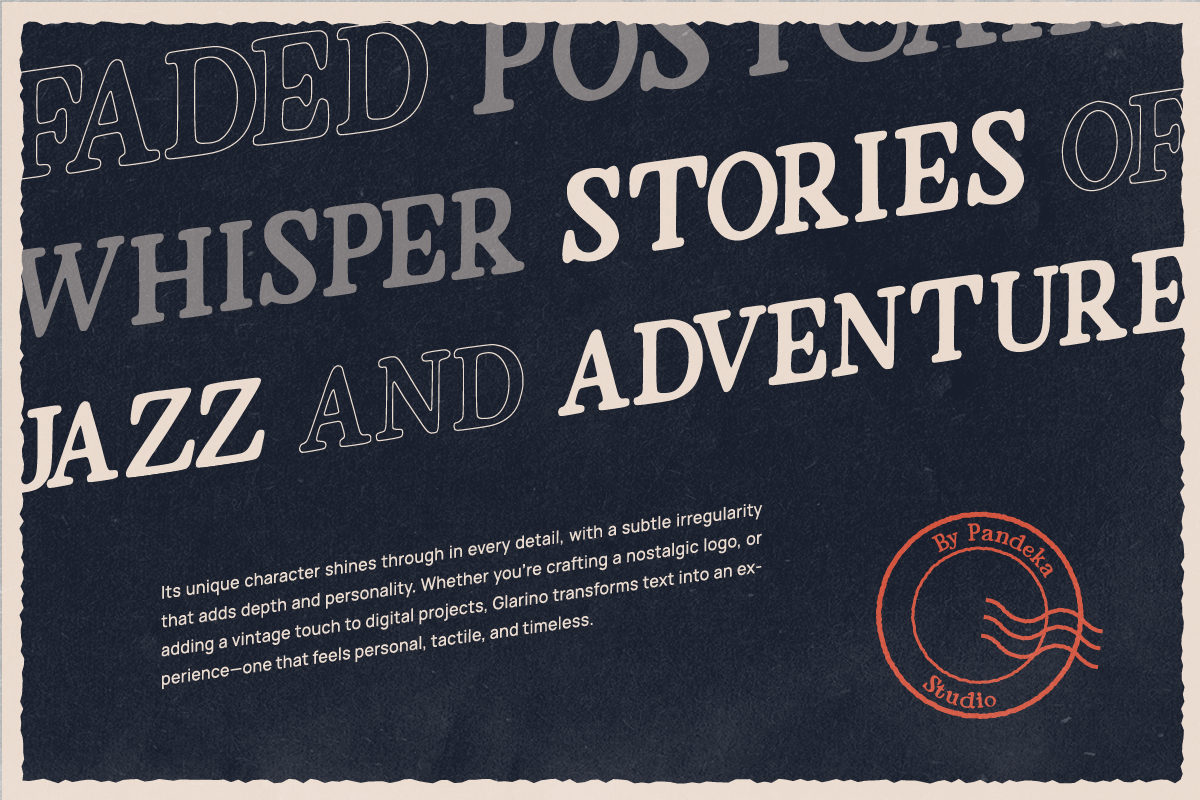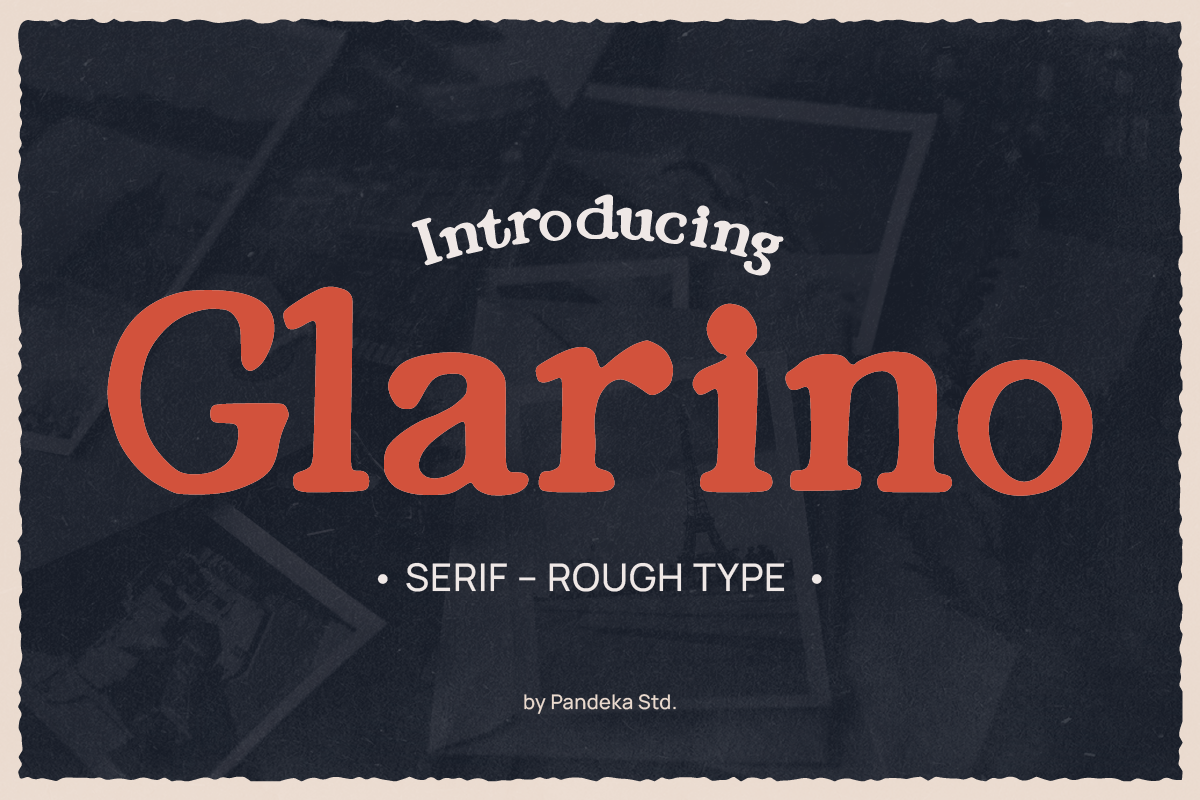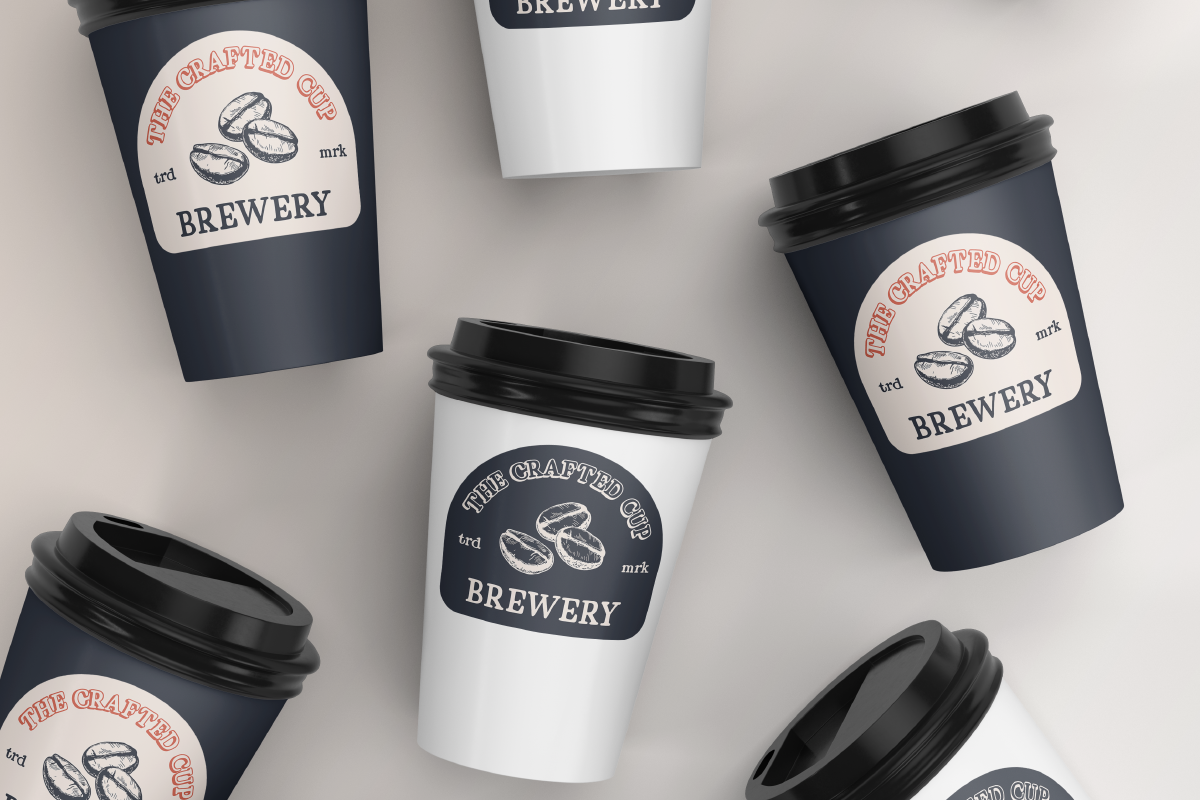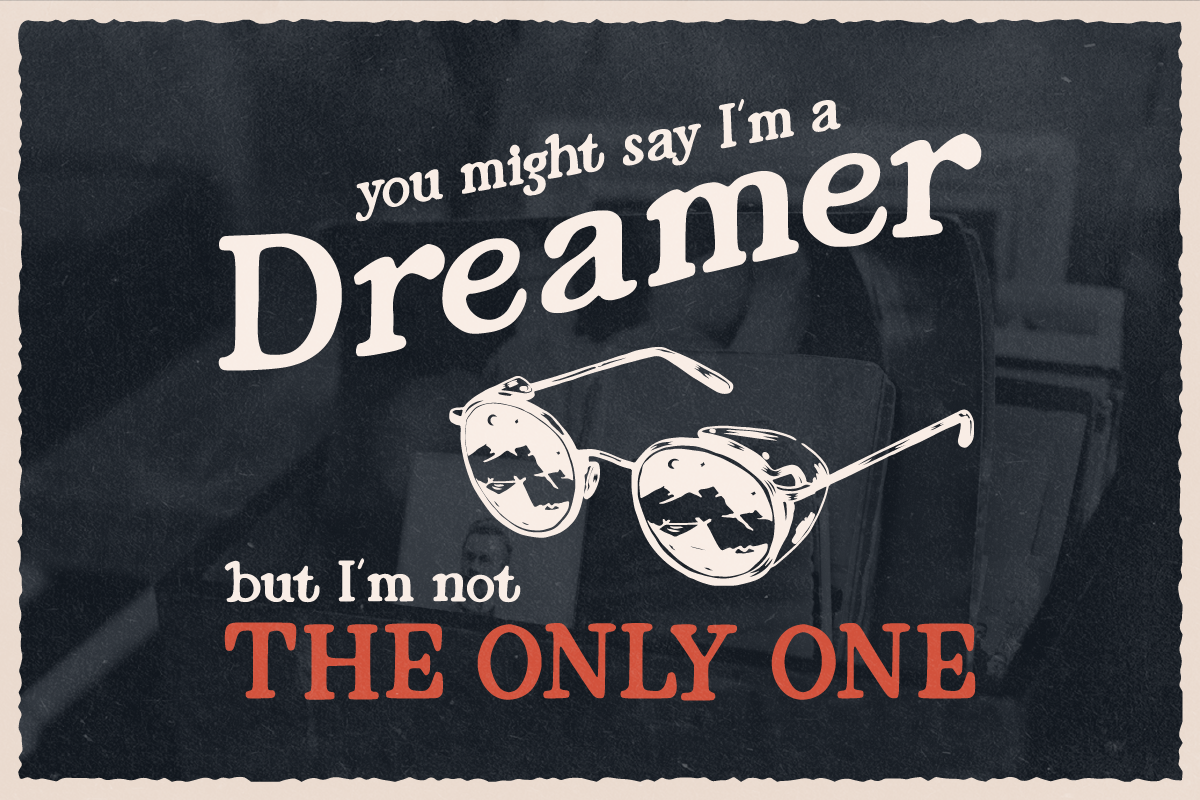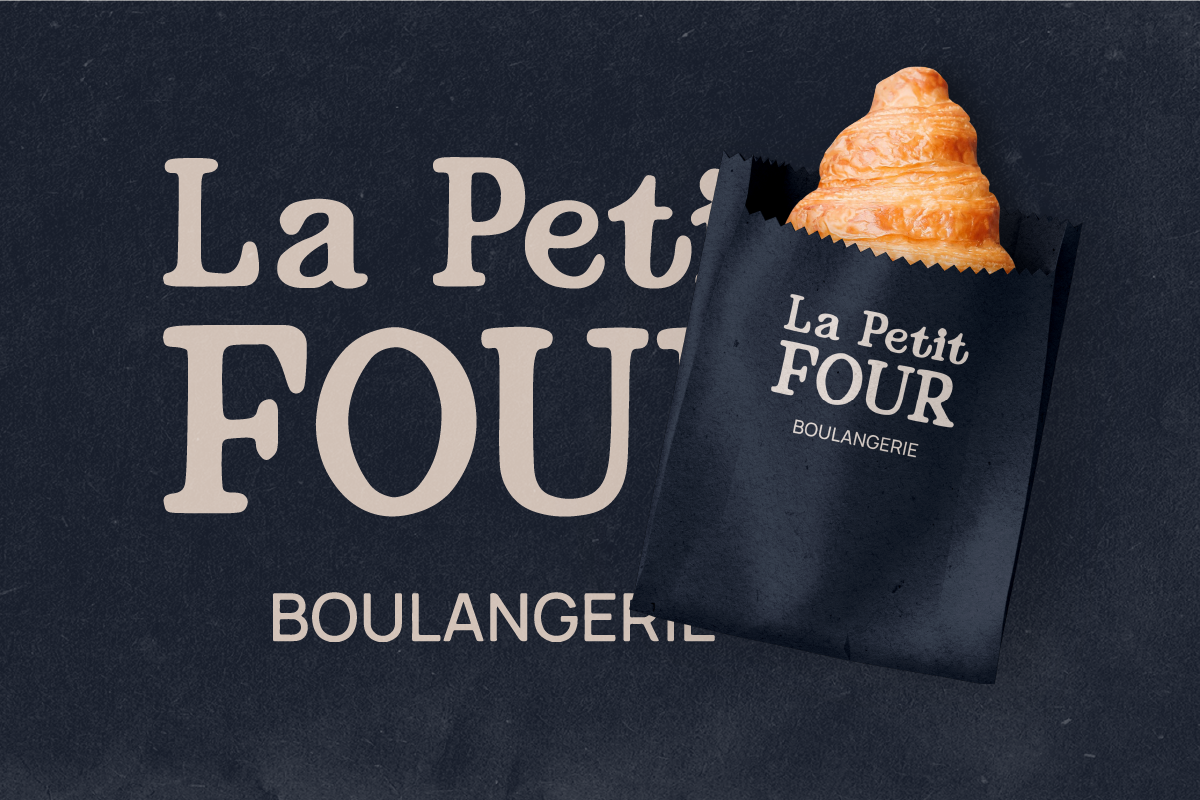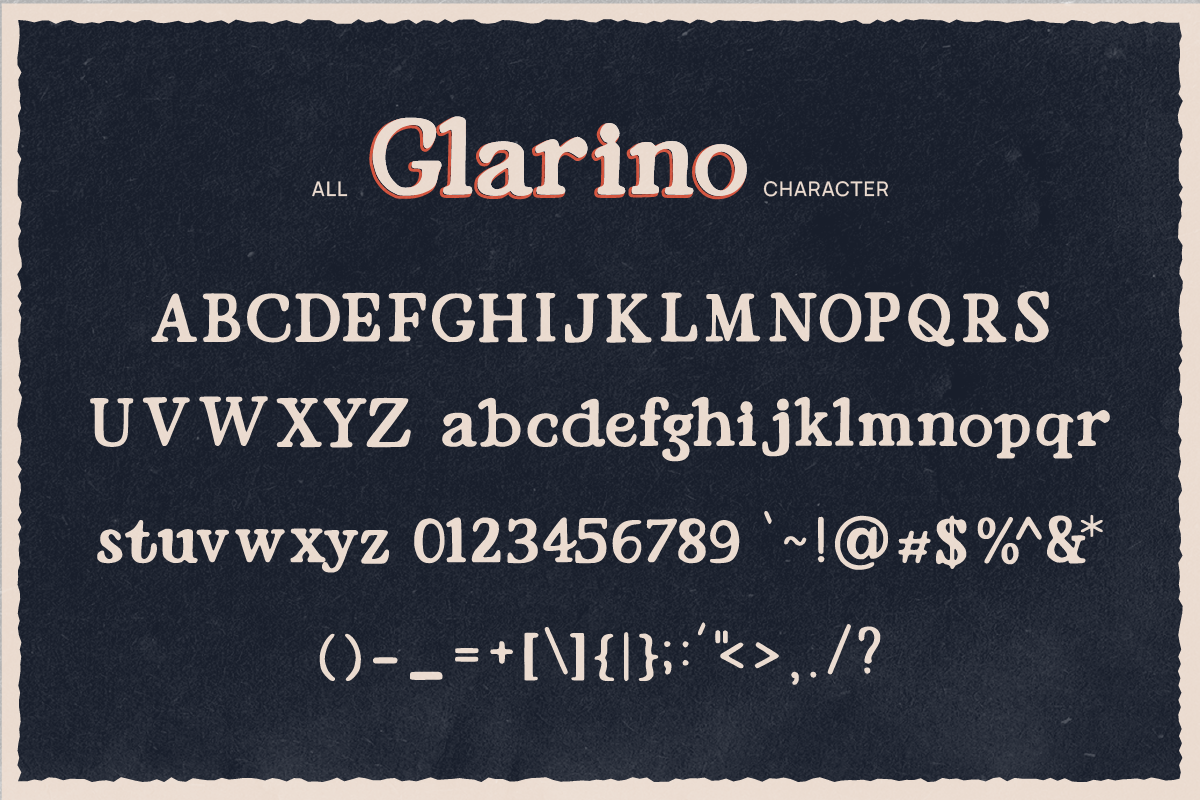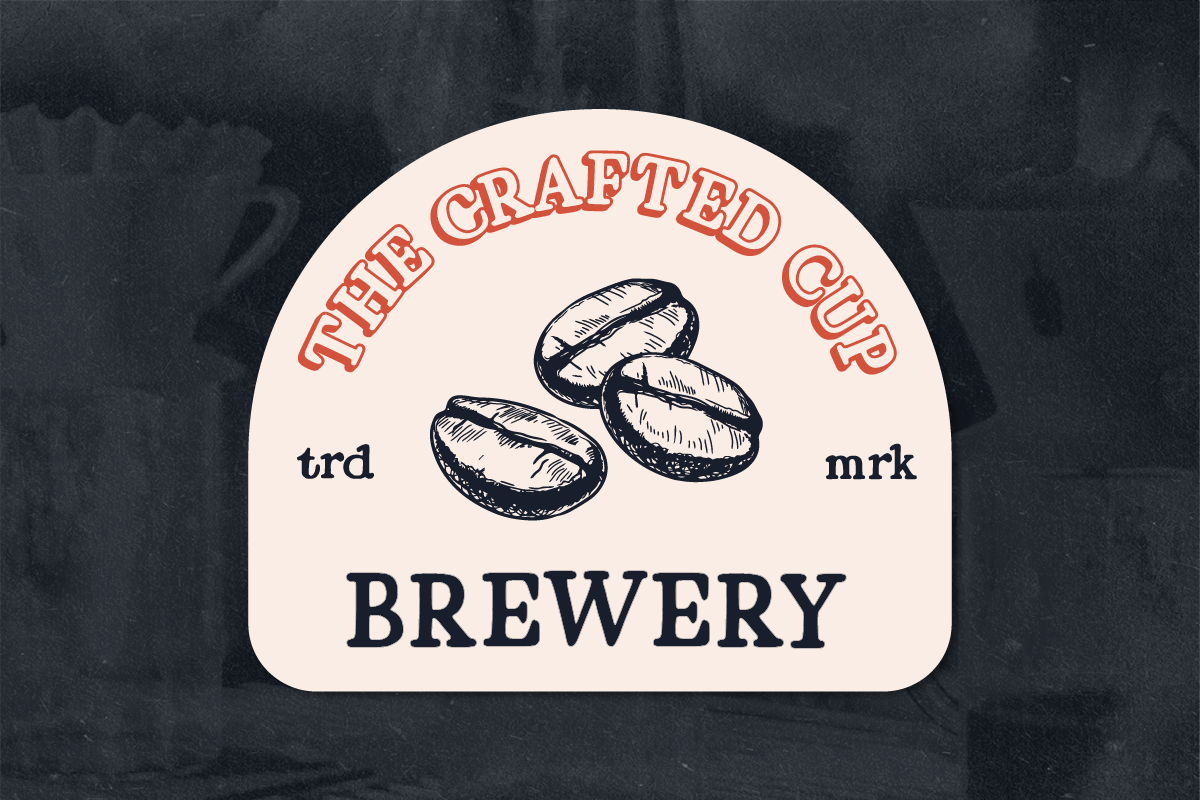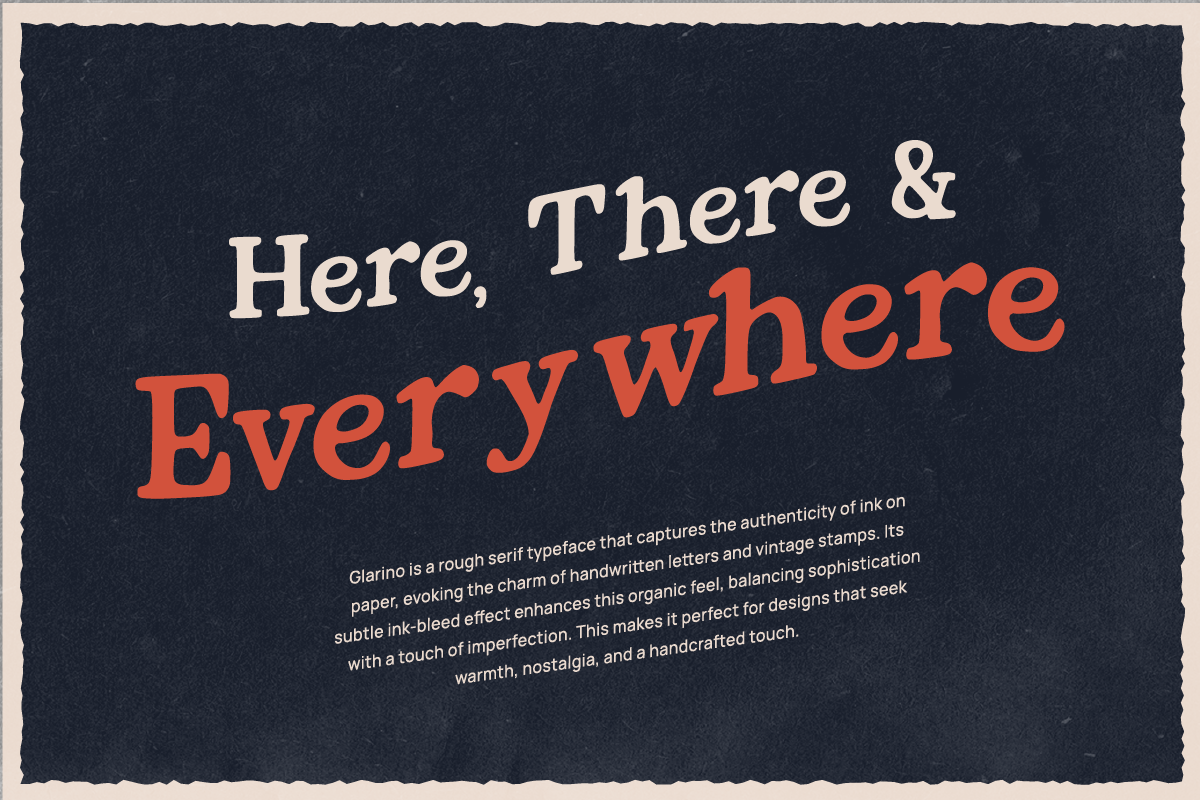
Glarino - Vintage Serif Font
Glarino - A vintage serif font that combines classic typography with elegant lettering and bold aesthetics. Perfect for timeless designs, Glarino adds a retro yet sophisticated touch to branding, packaging, editorial layouts, and headlines. Its unique stamp effect and moderate contrast make it a standout choice for projects that demand a blend of vintage charm and modern elegance.
- Full Character Set: Uppercase, lowercase, numbers, symbols, and punctuation